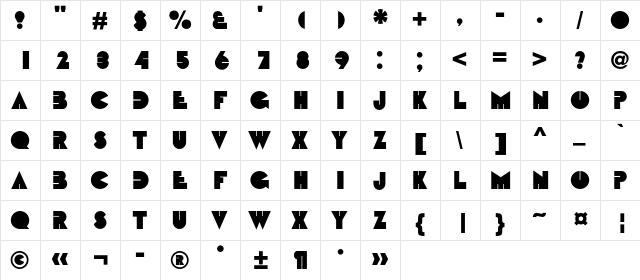
BebitC Regular
Design Context for BebitC Typeface
BebitC is a composed and adaptable typeface that performs quietly and consistently across a wide range of design contexts.